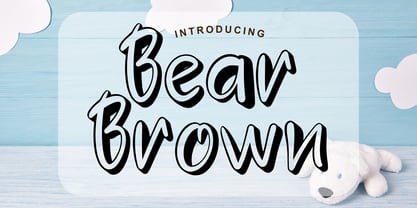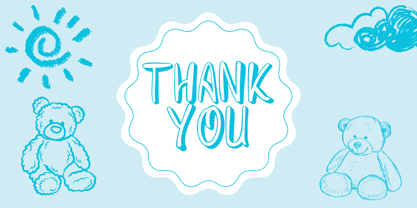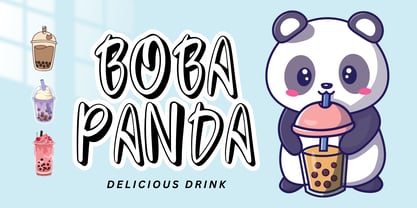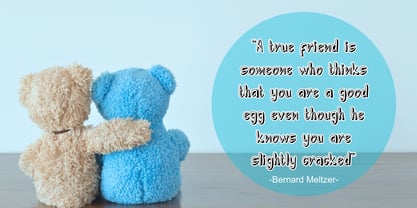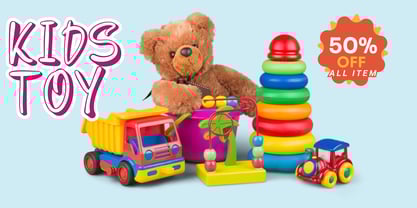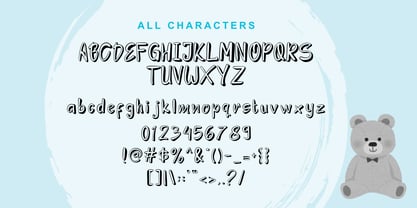
Bear Brown
by Andrey Font Design
The Bear Brown Font Family was designed by Stephanus Prabowo and published by Andrey Font Design. Bear Brown contains 2 styles and family package options. More about this family
Indulge in the charismatic charm of this stylish display font; it’s as funky as it is cool. Regardless of your theme, this typeface stands as an invaluable tool in your font arsenal, armed with versatility that’s primed to amplify any artistic endeavor. Its dynamic design holds the promise of pushing the boundaries of creativity.
Designers: Stephanus Prabowo
Foundry: Andrey Font Design